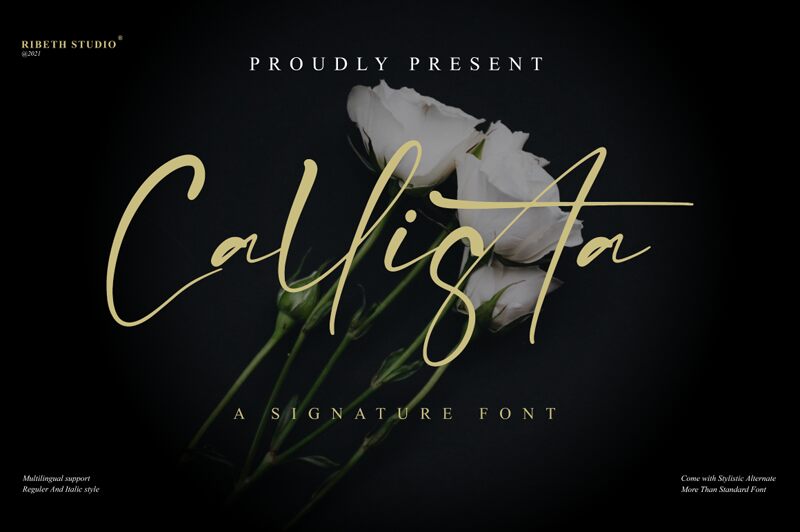
Callista, designed by Ribeth Studio, is a light signature font perfect for creating elegant logos and stationery. It's also a great choice for designing unique wedding invitations and other special event materials.